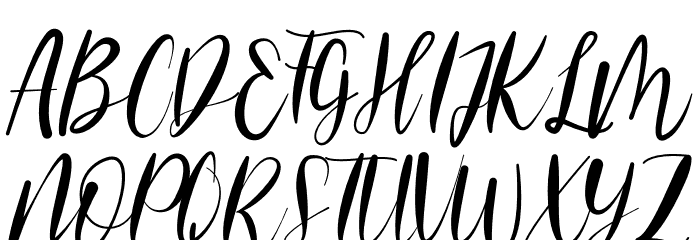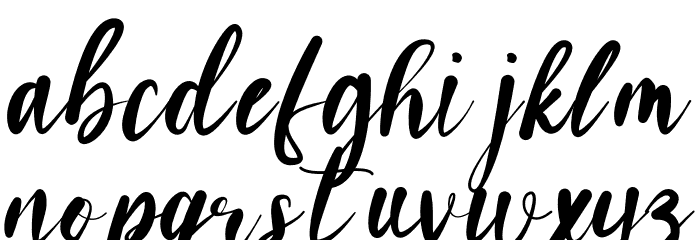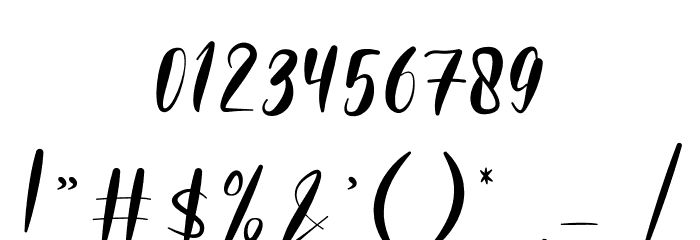
Nacowela Font
This font exudes a lively and expressive character, with its flowing script style that mimics the fluidity of handwriting. The letters are elegantly connected, creating a sense of movement and grace. The uppercase characters are bold and prominent, while the lowercase letters maintain a consistent rhythm, enhancing readability. The numerals are clear and well-defined, complementing the overall aesthetic. Special characters are thoughtfully integrated, maintaining the font's cohesive look. This font's dynamic and artistic flair makes it suitable for creative and decorative applications.
A lively, expressive script font with fluid, connected letters.
- Proposed Projects: Ideal for wedding invitations, greeting cards, branding, and artistic projects.
- Category: Script
- Use Case: Logos, Headlines, Invitations